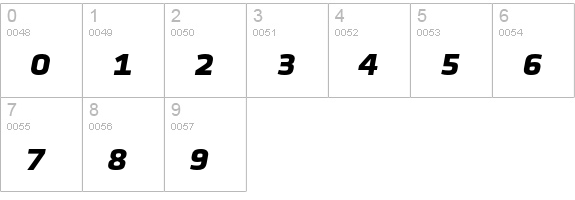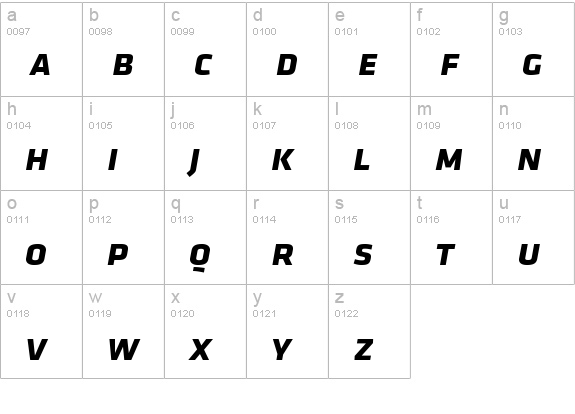
KlavikaBoldCaps-ItalicSCTF Font Details
KlavikaBoldCaps-ItalicSCTF is a beautifully designed font that combines the boldness of Klavika with the elegance of italicized letters. This unique combination creates a visually striking and modern look for any design project. The KlavikaBoldCaps-ItalicSCTF font is perfect for those who want to make a bold statement with their typography. Its strong, uppercase characters exude confidence and command attention, while the subtle curves of the italicized letters add a touch of sophistication. Whether you're designing a logo, creating a poster, or crafting a website, the KlavikaBoldCaps-ItalicSCTF font will instantly elevate your design to new heights. Its versatility allows it to be used in a variety of contexts, making it suitable for both professional and personal projects. But what makes KlavikaBoldCaps-ItalicSCTF font even more appealing is the fact that it is free. That's right, you can download this stunning font for free at FontsMarket.com. This means that you can enhance your designs without having to worry about breaking the bank. So why wait? Take advantage of the KlavikaBoldCaps-ItalicSCTF font's bold yet elegant aesthetic and download it for free today at FontsMarket.com. Elevate your designs and make a lasting impression with this truly remarkable font.